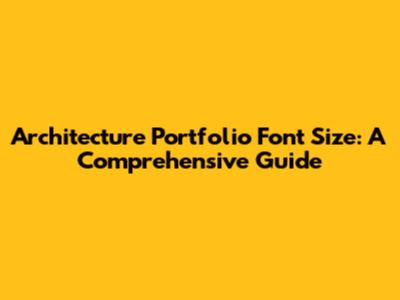
- Serif Fonts: Times New Roman, Garamond, Georgia
- Sans-Serif Fonts: Arial, Helvetica, Calibri, Open Sans
Creating an architecture portfolio that captures attention and effectively showcases your designs requires careful consideration of every element, including architecture portfolio font size. Getting the font size right is crucial because it impacts readability, visual hierarchy, and overall aesthetic appeal. Too small, and your text becomes a strain to read; too large, and it overwhelms your designs. In this comprehensive guide, we'll dive deep into determining the ideal font sizes for various sections of your architecture portfolio, ensuring your work is presented in the best possible light. Let's explore how font size influences the user experience and how to make informed decisions that enhance your portfolio's impact.
Understanding the Importance of Font Size in Portfolio Design
When it comes to portfolio design, the architecture portfolio font size you choose plays a pivotal role in how your work is perceived. It’s not just about making text visible; it’s about creating a harmonious balance between textual information and visual elements. A well-chosen font size can significantly improve readability, guiding the viewer through your portfolio effortlessly. This, in turn, allows them to focus more on your designs and less on struggling to decipher the text.
Think of your portfolio as a carefully curated exhibition. Each piece of text, whether it's a project title, a brief description, or a detailed explanation of your design process, contributes to the overall narrative. The right font size ensures that this narrative is communicated clearly and effectively. It establishes a visual hierarchy, indicating which pieces of information are most important and guiding the reader's eye through the page in a logical manner. Moreover, the choice of font size can also influence the perceived professionalism and attention to detail of your portfolio, leaving a lasting impression on potential employers or clients. Selecting the right font size demonstrates that you understand the importance of clear communication and visual presentation, which are essential qualities in the field of architecture. By carefully considering font sizes, you're not just making your portfolio readable; you're enhancing its overall impact and persuasiveness.
Recommended Font Sizes for Different Portfolio Sections
Choosing the correct architecture portfolio font size for each section is essential for creating a balanced and readable document. Different sections have different purposes, and the font size should reflect this. Here’s a breakdown of recommended font sizes for various parts of your architecture portfolio:
Headings
For headings, aim for a font size that stands out but doesn't overshadow your designs. A range of 18-24 points is generally effective for main headings. Subheadings can be slightly smaller, around 14-16 points, to create a clear visual hierarchy. Using a larger font size for headings helps to draw the reader's attention and provides a clear indication of the section's topic. Ensure that there is sufficient contrast between the heading text and the background to enhance readability.
Body Text
The body text should be easy to read and comfortable on the eyes. A font size of 10-12 points is typically ideal. This size allows for extended reading without causing strain. When choosing your body text font, consider its readability and legibility. Some fonts are designed specifically for body text and offer better readability at smaller sizes. Also, pay attention to line spacing and paragraph breaks to improve the overall reading experience.
Captions
Captions provide context for your images and designs, so they should be legible but not too prominent. A font size of 8-10 points works well for captions. Ensure that captions are placed close to the corresponding images and that there is sufficient contrast between the text and the background. Keep captions concise and informative, focusing on the key details that you want to highlight.
Labels and Annotations
Labels and annotations within your drawings and diagrams should be clear and easy to read. Use a font size of 6-8 points for labels, depending on the complexity of the drawing. Ensure that labels are positioned close to the elements they describe and that they do not overlap or obscure important details. Consider using different font weights or styles to differentiate between different types of labels.
Portfolio Summary
The portfolio summary serves as a concise overview of your skills, experience, and design philosophy. Choose a font size that is easy to read and inviting, typically around 11-12 points. Use clear and concise language to convey your message effectively. Highlight key achievements and skills that are relevant to the job or project you are applying for. Ensure that the summary is well-organized and easy to scan, with clear headings and bullet points to highlight important information.
Choosing the Right Fonts for Your Architecture Portfolio
Selecting the right fonts is as crucial as deciding on the architecture portfolio font size. Fonts contribute significantly to the overall aesthetic and readability of your portfolio. Here are some tips for choosing fonts that complement your work:
Font Pairing
Pairing fonts effectively can enhance the visual appeal of your portfolio. A common strategy is to pair a serif font for headings with a sans-serif font for body text, or vice versa. This creates a visual contrast that helps to differentiate between different types of content. However, it's important to choose fonts that complement each other in terms of style and weight. Avoid using too many different fonts, as this can make your portfolio look cluttered and unprofessional.